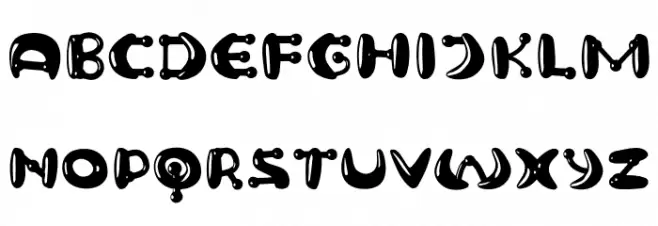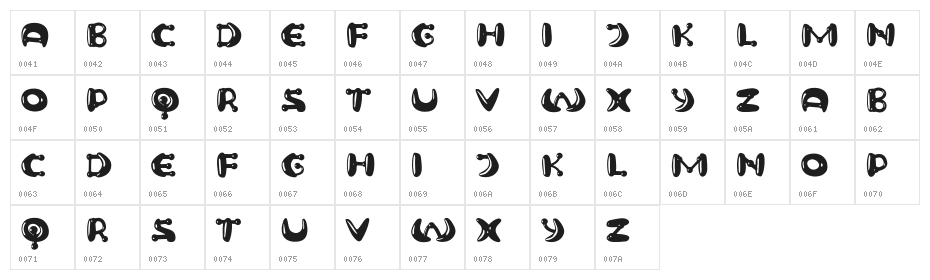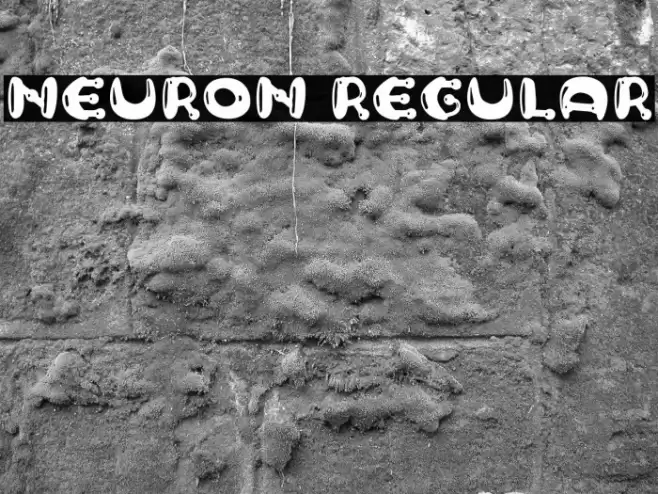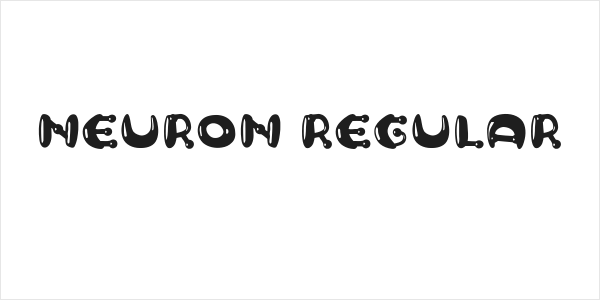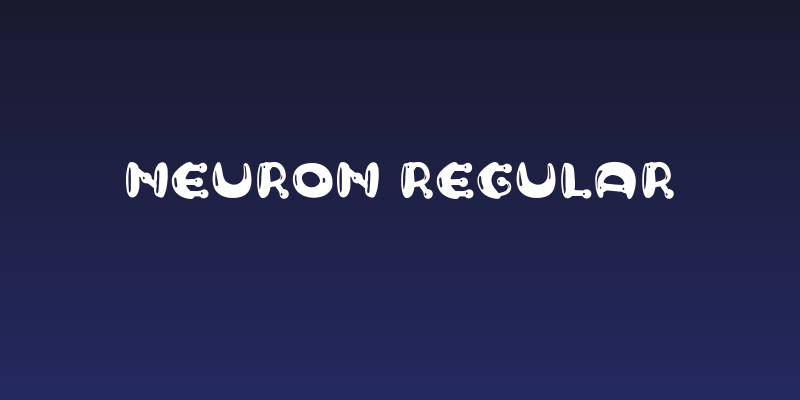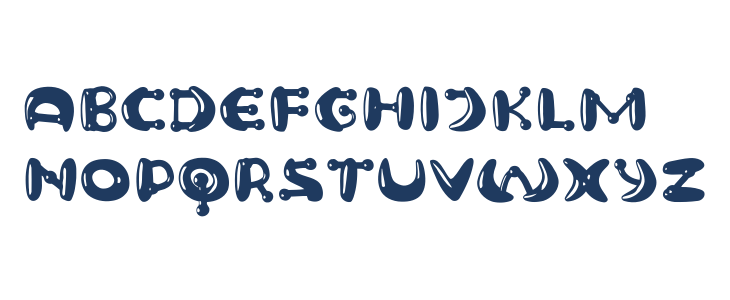
Neuron Regular Font
Neuron Regular Description
This font features a unique and playful design with bold, rounded characters that incorporate small circular cutouts, giving it a whimsical and modern appearance. The letters are uniformly thick, with a consistent stroke width that adds to its boldness. The overall style is decorative, making it stand out with its distinctive and eye-catching look. The characters are evenly spaced, providing a balanced and harmonious appearance. This font is ideal for projects that require a fun and engaging aesthetic, such as children's books, playful branding, or creative posters.